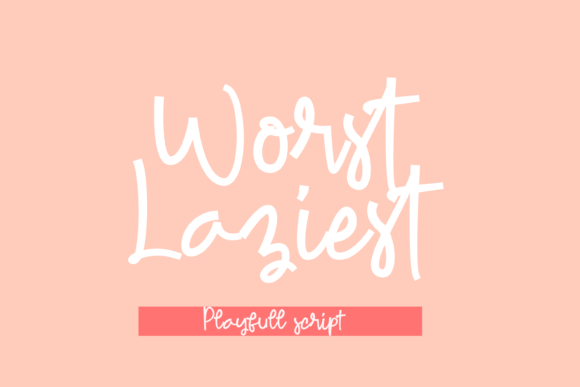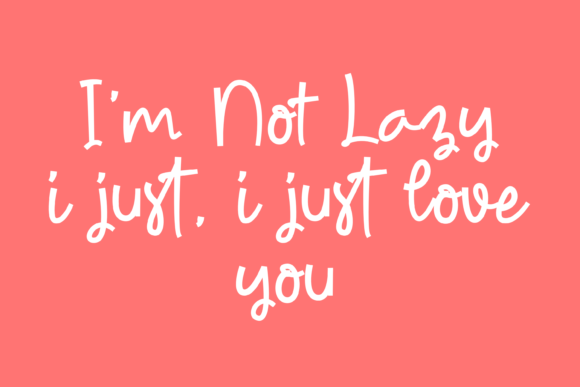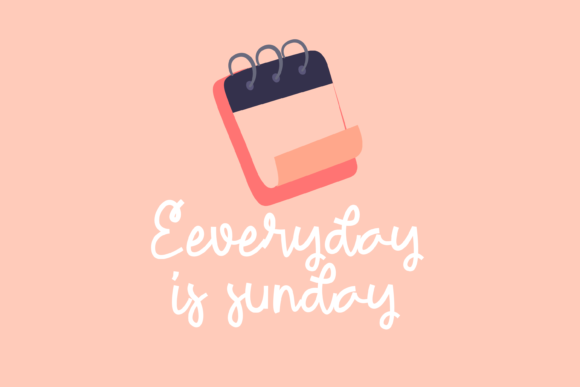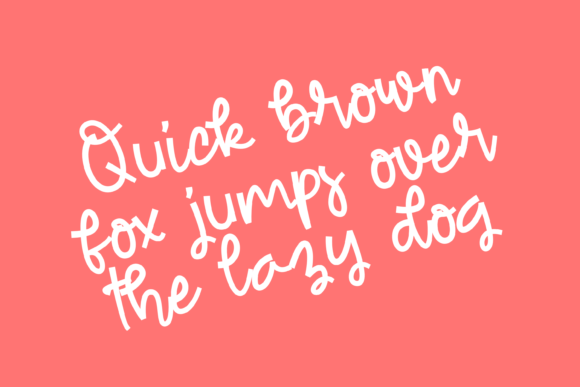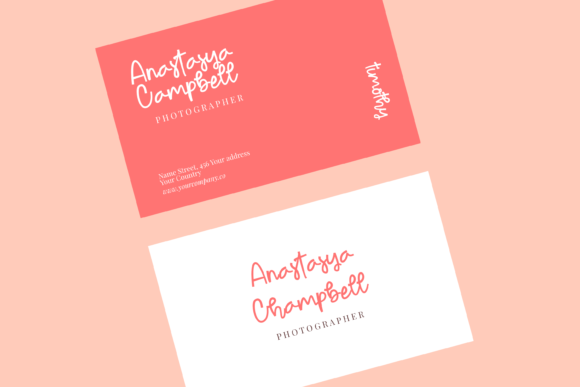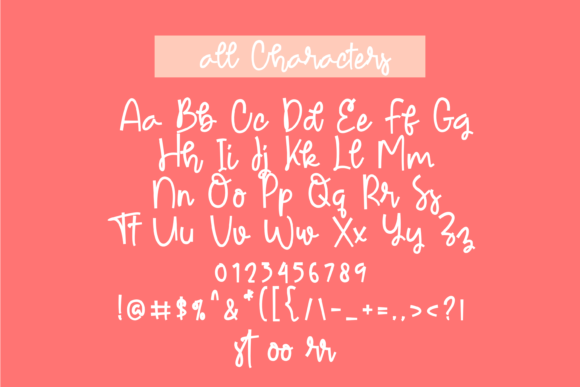
Worst Laziest Font
About Worst Laziest Font
Worst Laziest is a chic, refined script font that emanates sophistication and elegance. Its stylish alternates and ligatures make this font the perfect match for any project.